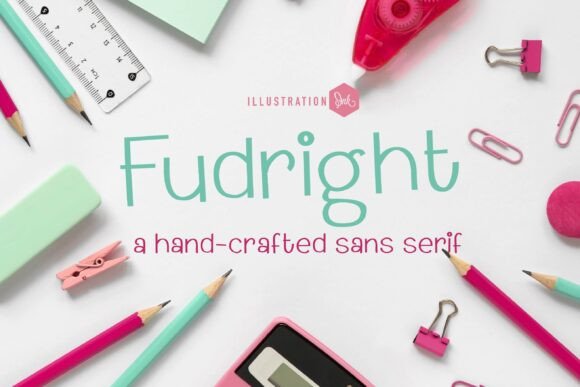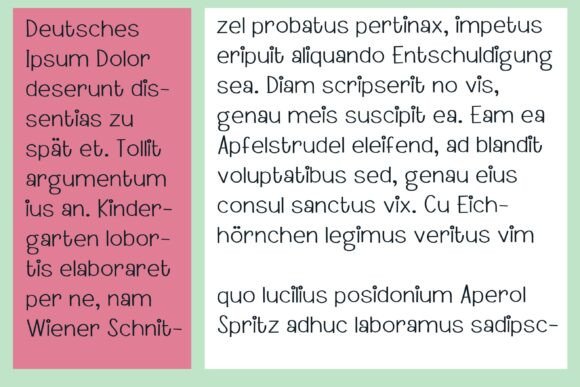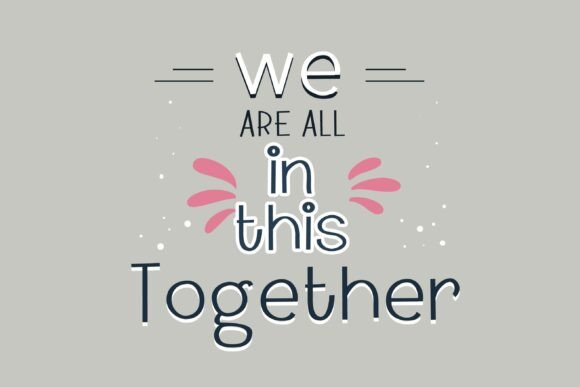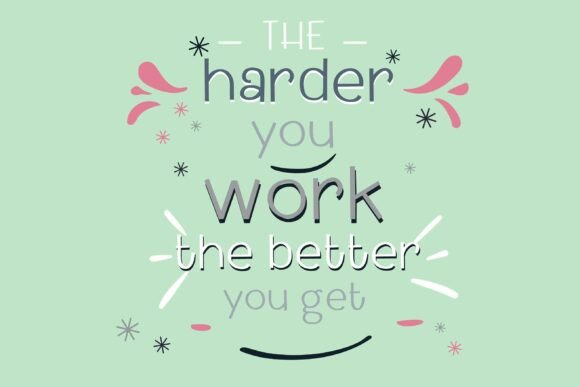
Fudright Font
About the Fudright Font
Discover the charm of Fudright Font. This font is a perfect blend of modern aesthetics and classic appeal. This hand-crafted font is a simple sans serif print.
Fudright’s handcrafted aesthetic makes it ideal for headlines, short text blocks on posters or branding materials, and even select packaging applications where a touch of casual elegance is desired. Its informal, yet refined nature lends itself well to projects with a friendly and approachable feel. Avoid using it for large blocks of body text or UI elements; its handcrafted irregularities might hinder readability in those contexts.
Pairing Fudright with a clean sans-serif like Open Sans for body copy provides excellent contrast and readability. For a more playful feel, consider pairing it with a rounded geometric sans-serif. A classic serif like Garamond can add a touch of sophistication when used for supporting text.
The overall personality of Fudright is approachable and slightly playful, but retains a level of sophistication that avoids appearing overly childish or informal. It’s well-suited to brands focused on artisanal goods, small businesses with a friendly image, or creative projects needing a touch of handmade charm.
Fudright Font Usage Examples
Fudright Font Example